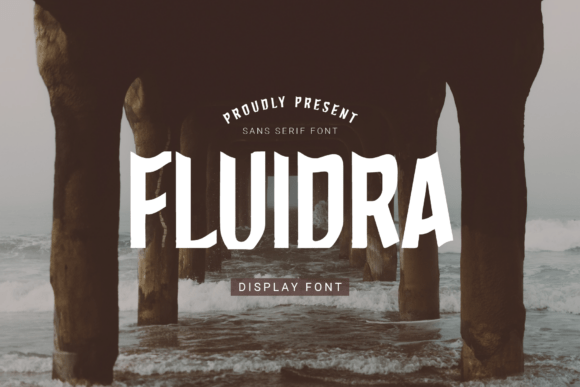
Enter the Fluidra Font, a refreshing addition to the world of typography designed to make your creative endeavors a breeze. This casual, friendly font is perfect for anything from branding and advertising to editorial and digital content. Whether you’re a seasoned designer or just starting out, the Fluidra Font is a valuable asset to have in your toolkit, providing the perfect balance of style and readability.
Key Features of Fluidra Font
- Font Family: Fluidra Font is a sans-serif font family designed for modern and elegant typography.
- Unique Characteristics: Fluidra Font features a unique blend of modern and classic elements, with a focus on legibility and readability, making it an ideal choice for digital and print media.
- Character Set: The font family includes a wide range of characters, including Latin, Cyrillic, and Greek alphabets, as well as punctuation and symbols.
Designer Review: Fluidra Font
Overall, I was impressed with the versatility of the Fluidra Font. It’s perfect for modern designs, especially when you need to create a friendly and approachable atmosphere ✨. The font has a great balance of elegance and playfulness, making it suitable for a wide range of applications, from digital products to print materials.
Some of the strengths of Fluidra Font include:
- Excellent legibility, even at smaller font sizes
- Works well in both serif and sans-serif contexts
- Supports a wide range of languages
- Provides a consistent and harmonious visual flow
However, there are some limitations to consider ⚠️:
- May not be the best choice for formal or traditional designs
- Can be a bit too casual for complex or technical content
- Some users may find the font a bit too “safe” or unremarkable
In conclusion, Fluidra Font is a solid choice for designers looking for a versatile and user-friendly font. While it may not be the most exciting or groundbreaking option, it’s a reliable and effective solution for a wide range of design applications.
For the best results, use the Fluidra Font in headings and titles to add a touch of elegance and sophistication.
For the best results, use the Fluidra Font in combination with bold lines and shapes to create a modern and sleek design.
For the best results, use the Fluidra Font in headings and titles to add a touch of professionalism and sophistication.
Tips for Getting the Most Out of Fluidra Font
Use the Fluidra Font in combination with bold lines and shapes to create a modern and sleek design.
Experiment with different font sizes and colors to add visual interest and emphasis.
Use the Fluidra Font in headings and titles to add a touch of elegance and sophistication.
Business presentations and reports
Marketing materials and brochures
Personal branding and logos
Alternatives to Fluidra Font for Designers
Compared to Fluidra Font, Montserrat is more modern and sleek, with a more geometric feel. While Fluidra Font has a more elegant and sophisticated look, Montserrat is ideal for designs that require a more contemporary and urban feel.